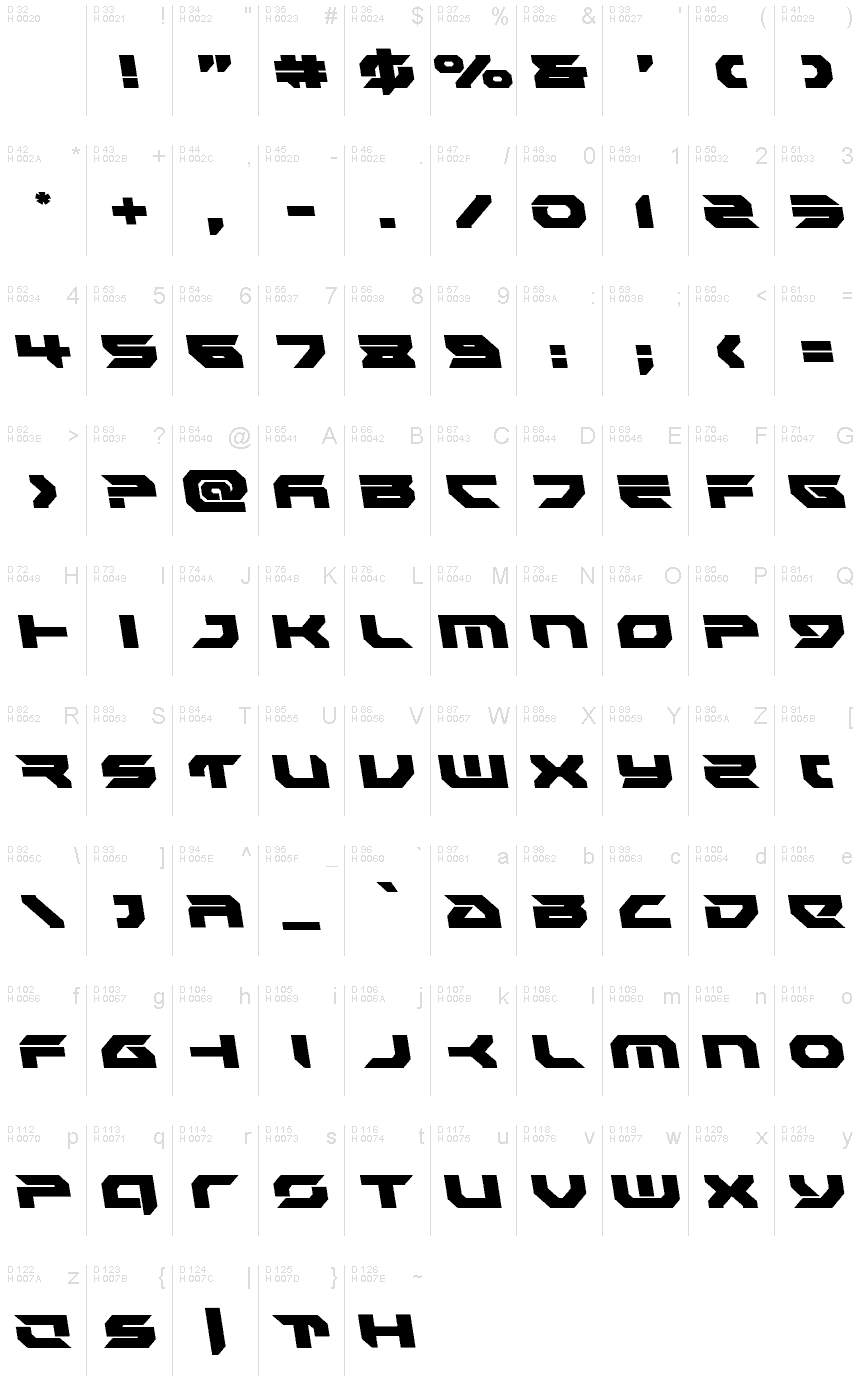
Royal Samurai Semi-Leftalic
Royal Samurai Semi-Leftalic font by Iconian Fonts is a bold and expanded display font with a strong, futuristic style. Rigid angular lines dance along geometric shapes to create this technological typeface that balances sophistication and strength. Its generous spacing allows it sufficient room to stand out both for the aesthetic value of its design but also its legibility.
Use Royal Samurai in headings, subheadings, posters, flyers, banners, magazines covers or spreads. Create logos with your business name written in this extraordinary lettering style. Use it for packaging labels that require a distinctive font or any online text like website headers or social media posts.